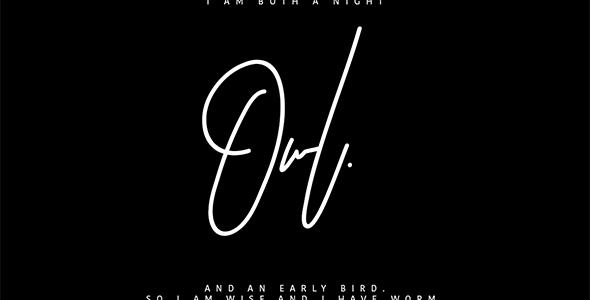
Astronout Signature Typeface
Give your designs an authentic handcrafted feel. “Astronout Signature Typeface” is perfectly suited to stationery, logos and much more.